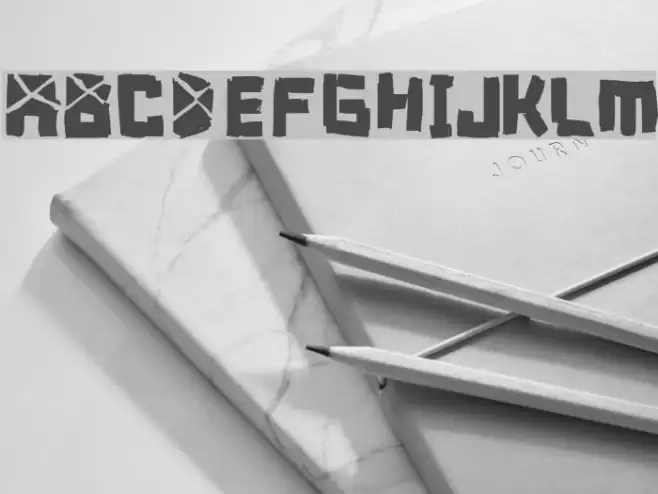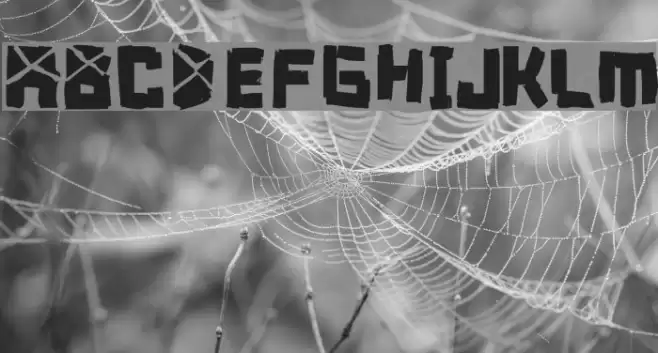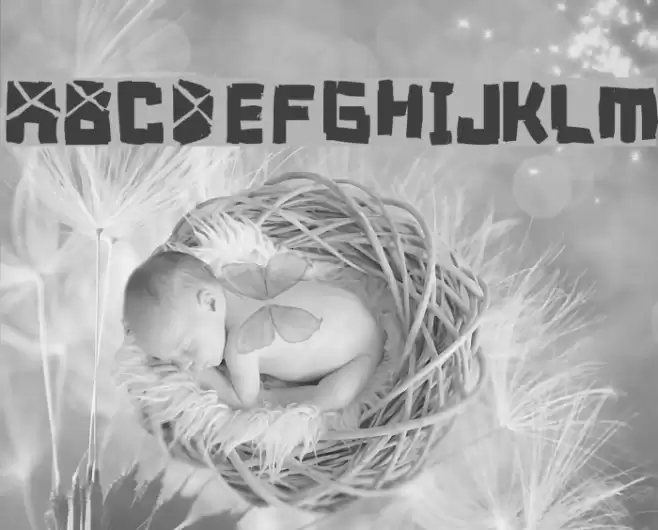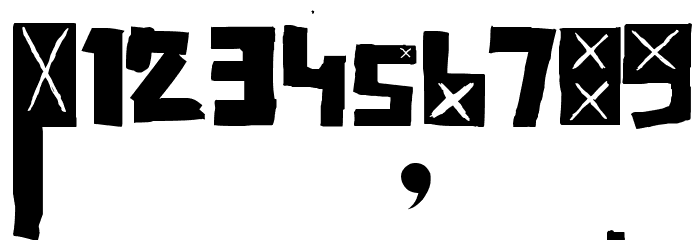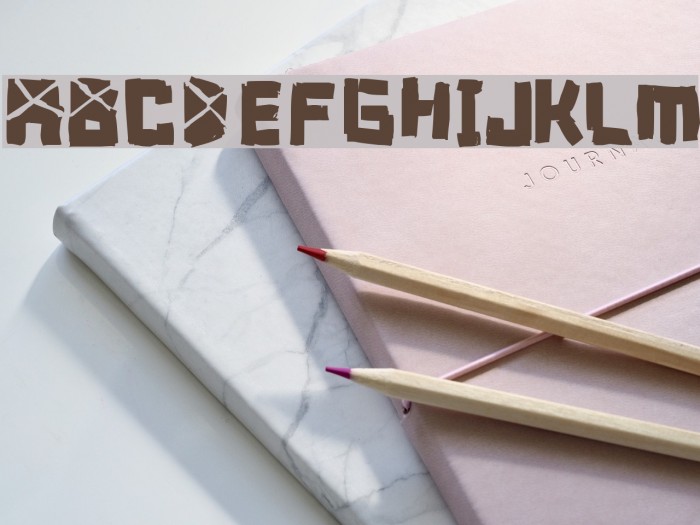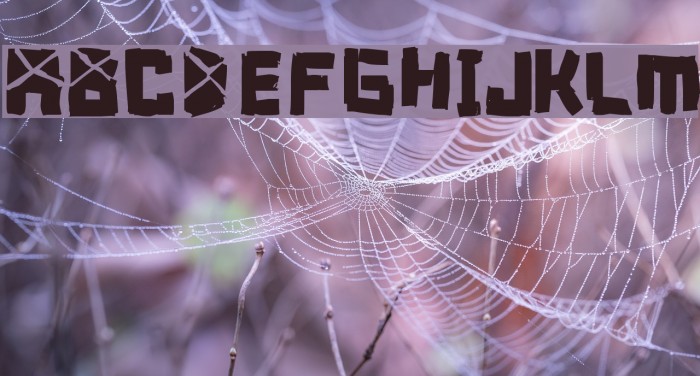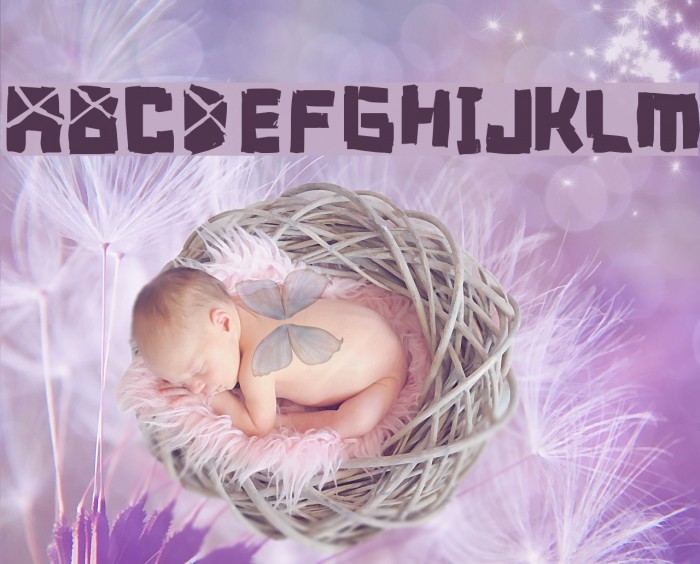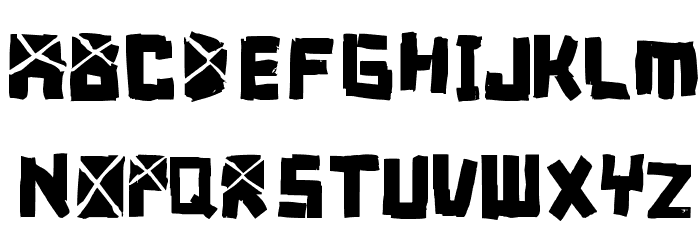
This font features a bold and striking design with a distinctly geometric and angular style. Each character is crafted with sharp edges and a blocky appearance, creating a sense of strength and modernity. The uppercase letters are particularly prominent, with unique cut-out patterns that add an element of intrigue and complexity. The numbers and special characters follow the same bold aesthetic, ensuring consistency throughout. This font is ideal for making a strong visual impact, suitable for projects that require a modern and edgy look.
A bold, geometric font with angular, blocky characters and unique cut-out patterns from Stencil fonts.
- Proposed Projects: Ideal for posters, album covers, branding, and any project needing a modern, edgy aesthetic.